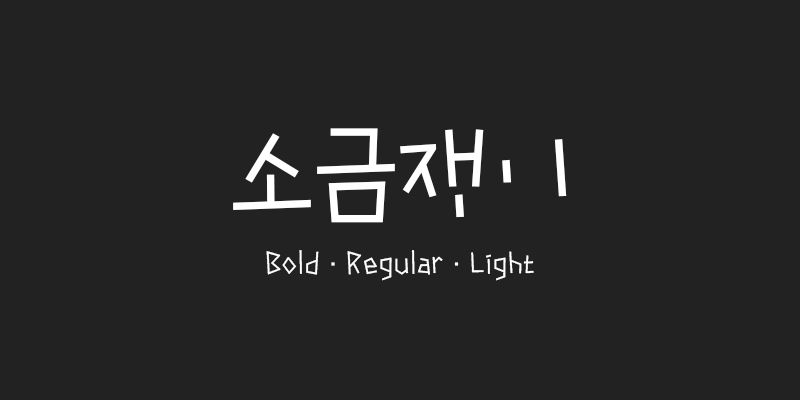
210 Sogeumjaengi Font Free Download is a charming and uniquely styled typeface that brings warmth and personality to your designs. Inspired by playful handwriting and casual brush strokes, this font is perfect for projects that aim to feel friendly, artistic, and approachable. It works beautifully in posters, packaging, handmade product labels, and social media graphics where a human touch is key.
What makes 210 Sogeumjaengi special is its organic flow and slightly irregular shapes that mimic real handwriting. It captures the spirit of creativity and authenticity, giving your text an expressive, lived-in look. Whether you're designing for a craft brand or creating custom invitations, this font adds a delightful, personal feel to every word.
Add a spark of originality to your typography collection with 210 Sogeumjaengi. Its friendly curves and artistic style make it a must-have for designers who want to break away from the ordinary and embrace creativity. Try it now and see how it can make your next design more expressive and engaging.